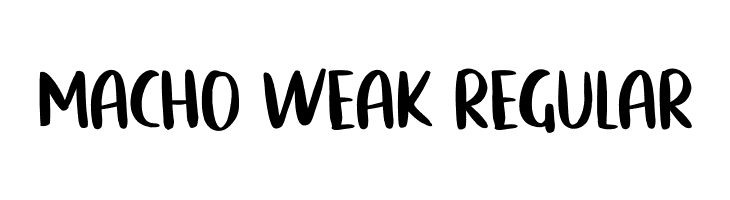
A bold, handwritten font with a playful and energetic style.
A bold, playful handwritten font with rounded strokes and a dynamic slant.
A bold, handwritten font with a playful and casual style.